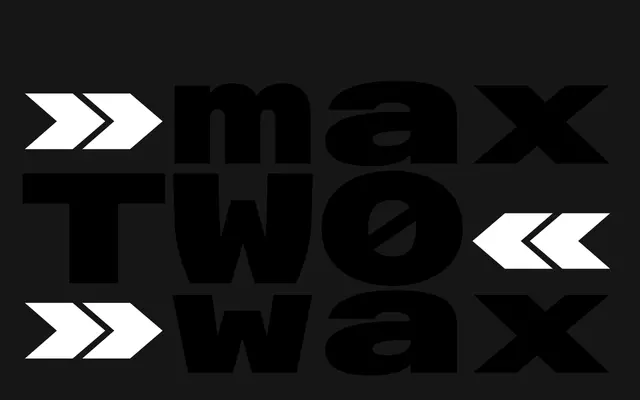
Alpaga
A variable monospace typeface by Ian Party spanning 96 styles from Extra Condensed Hairline to Ultra Expanded Extra Black.
Designed by Ian Party and published by Newglyph, Alpaga covers an unusually wide stylistic range for a monospace family, with weight, width and italic axes available through a single variable font file. Each character maintains a consistent width across all styles, preserving the structured rhythm typical of monospaced type. The package ships in TTF, OTF and WOFF2 formats and covers an extensive range of Latin-script languages.
Alpaga is explicitly designed as a monospace typeface, with uniform character widths across all styles, available as a variable font with axes for weight, width and italic.